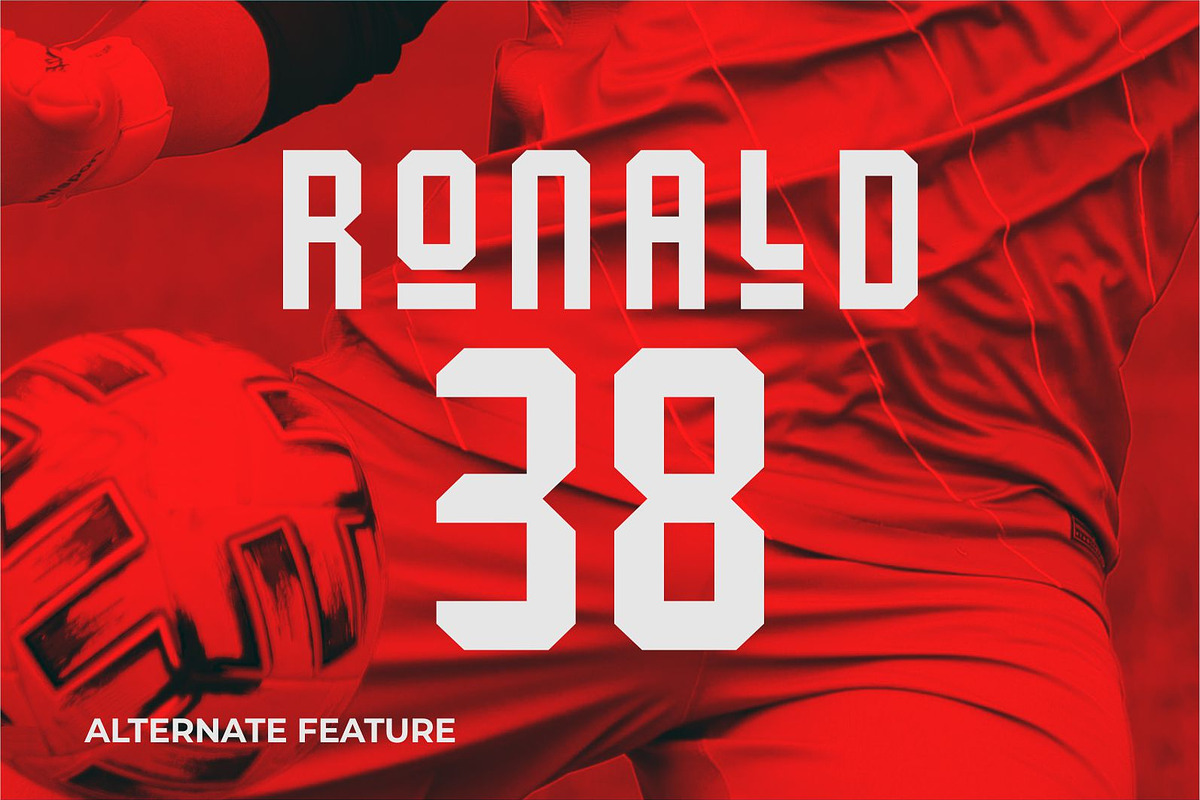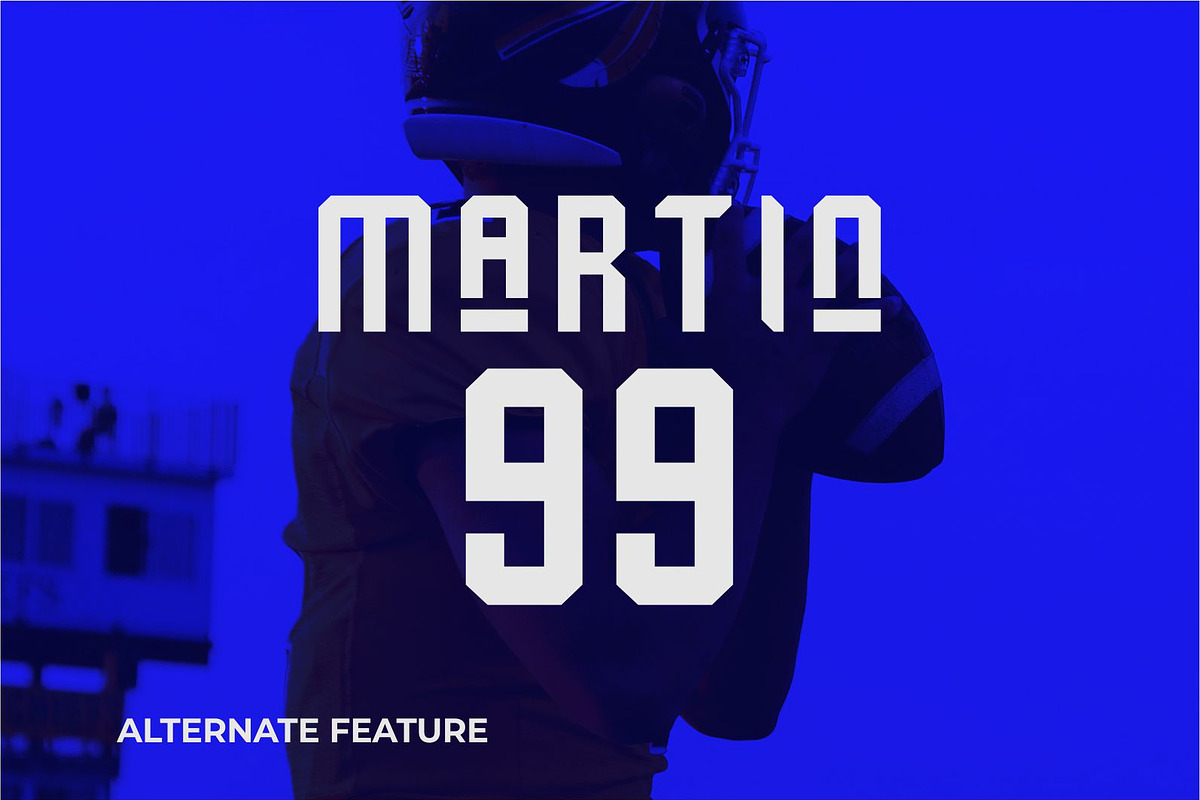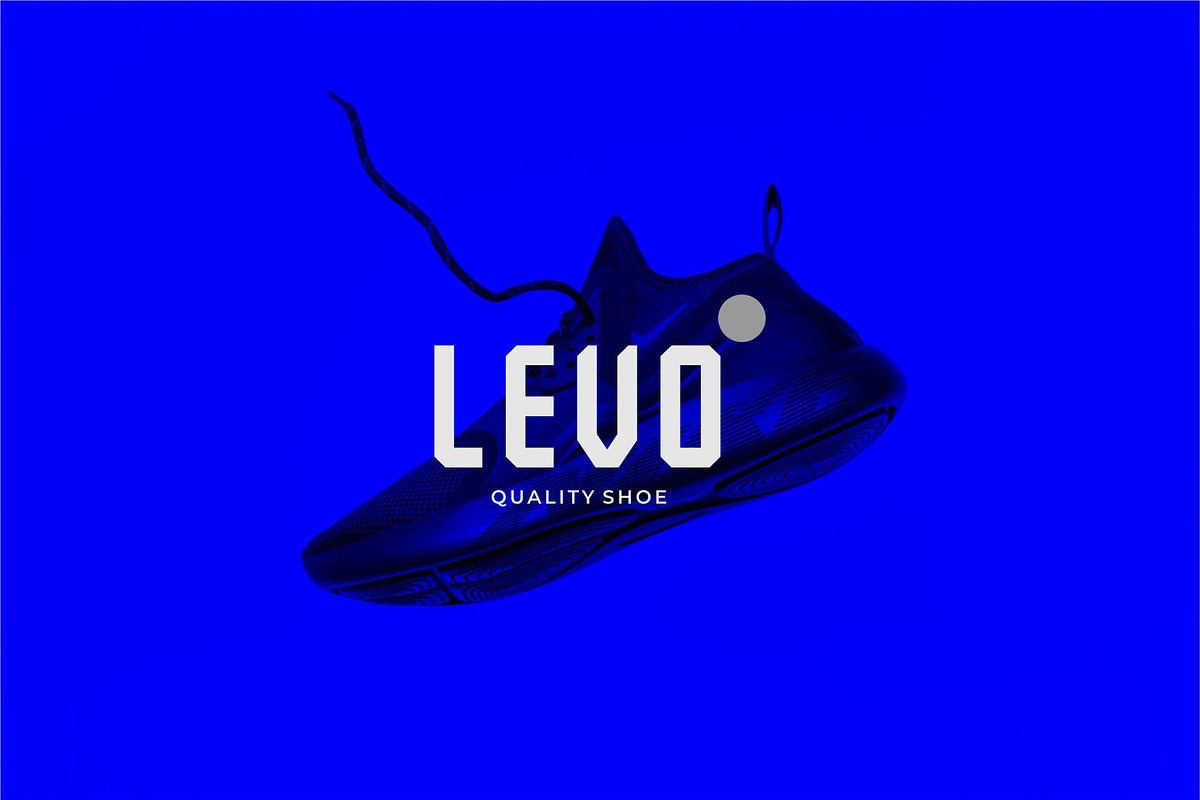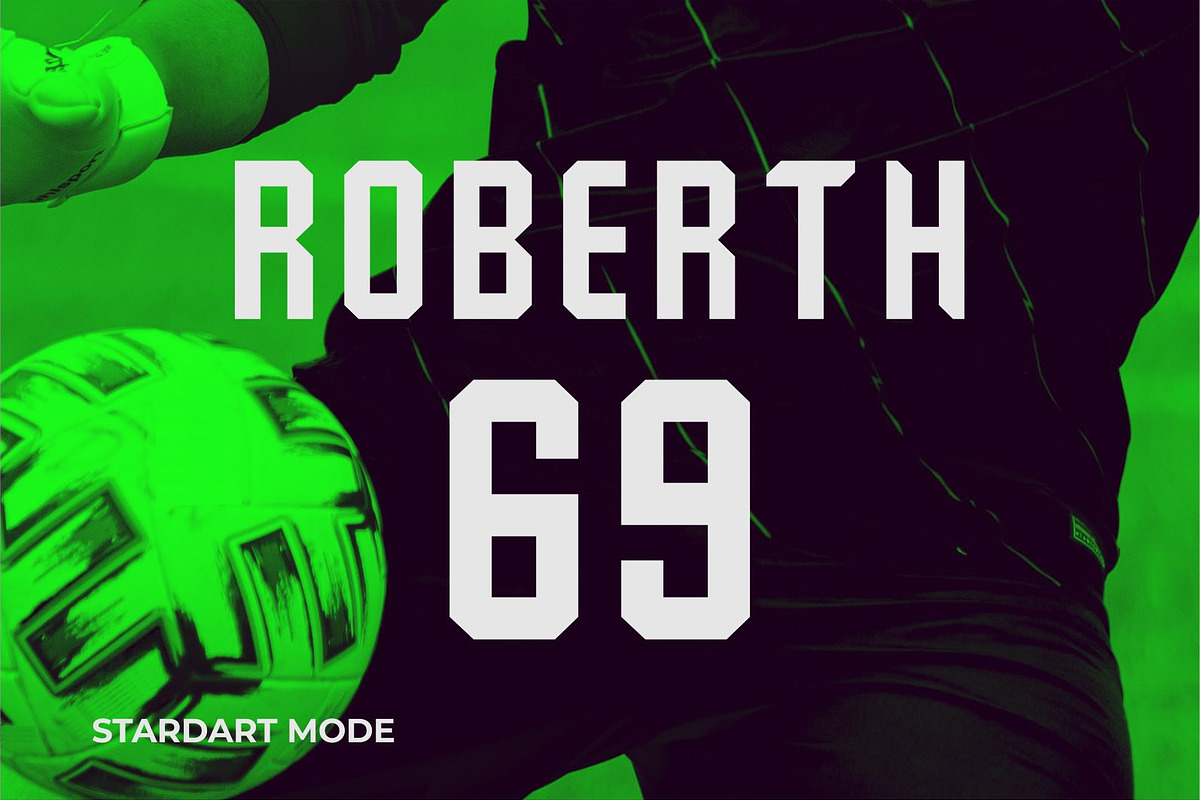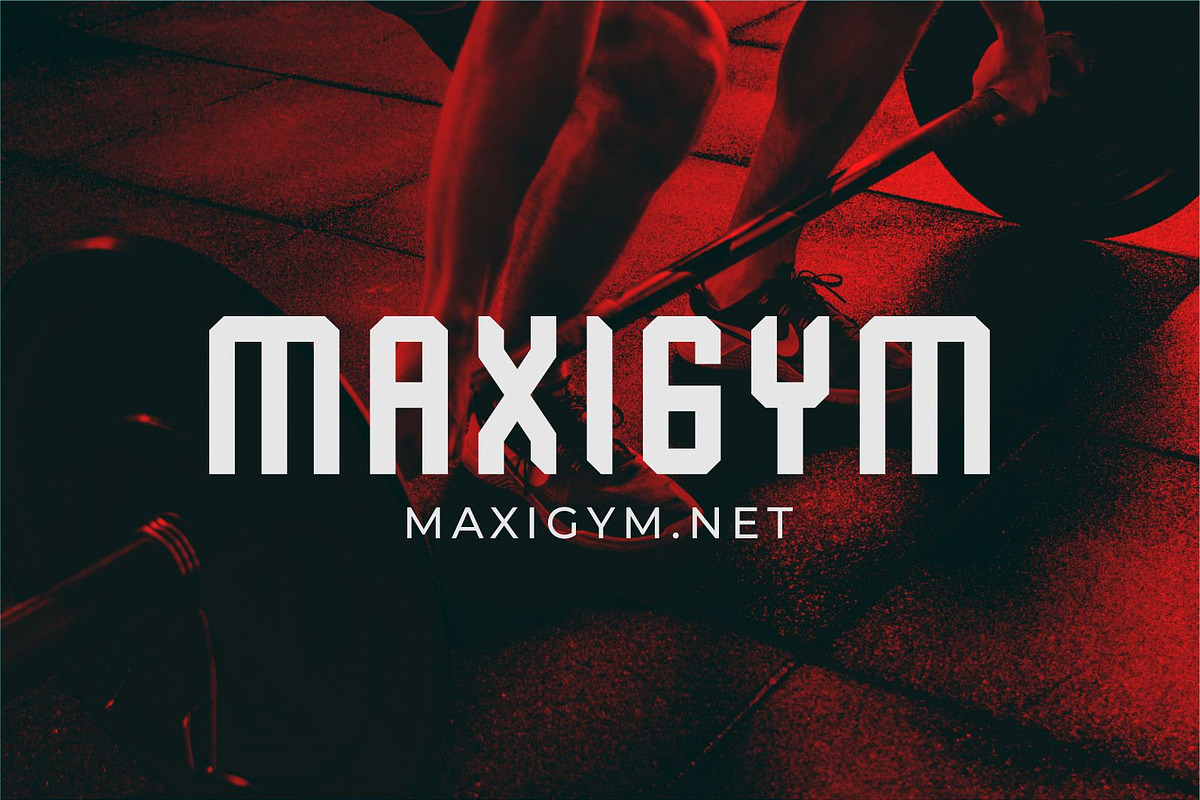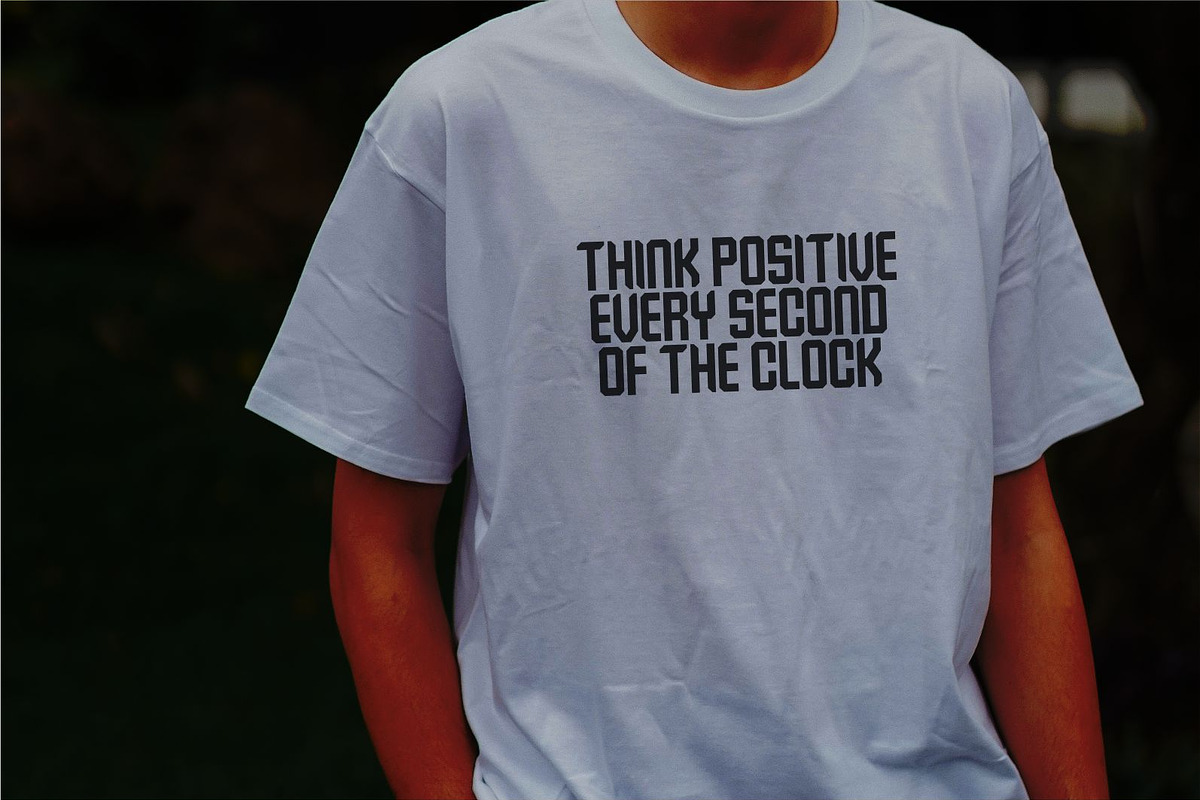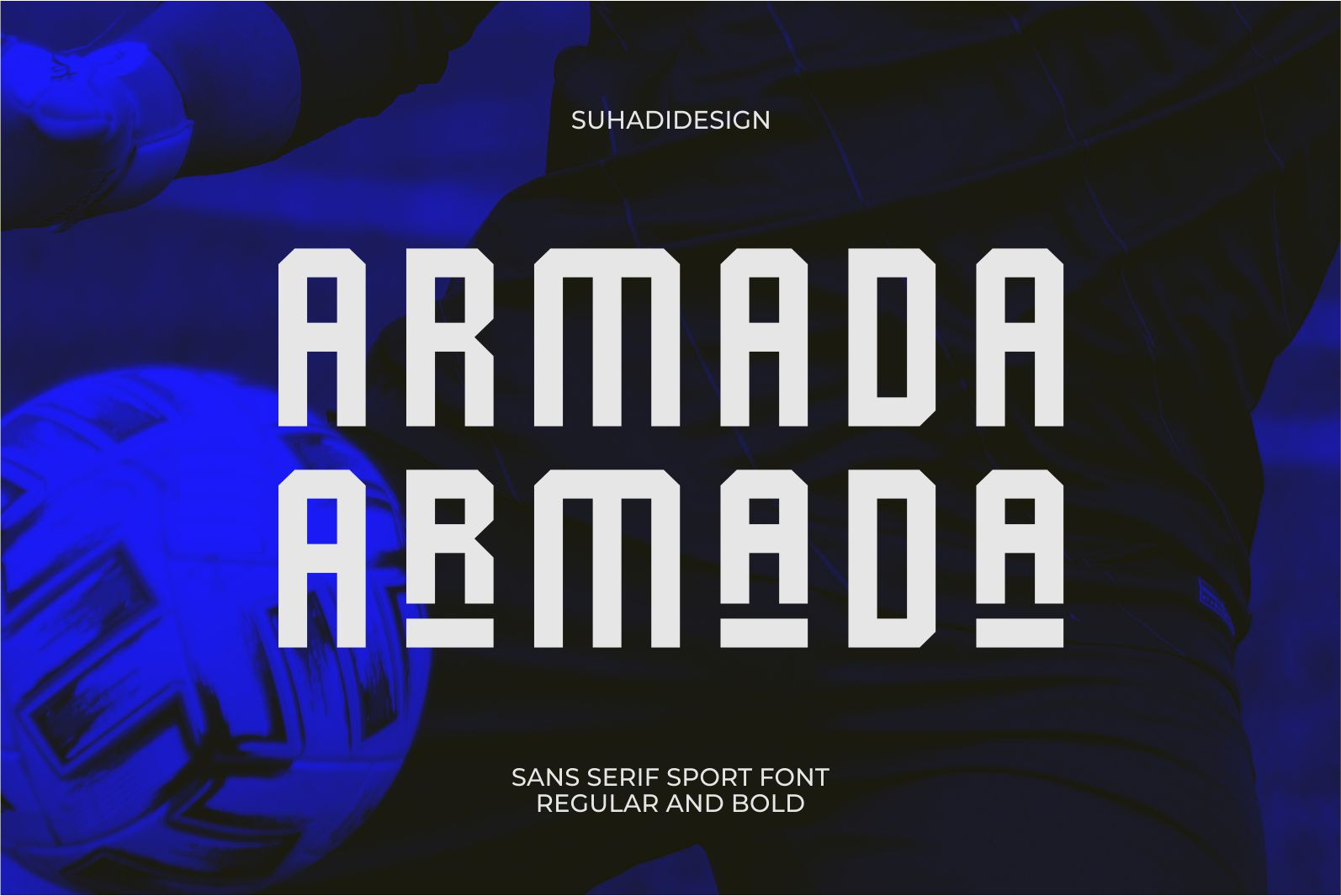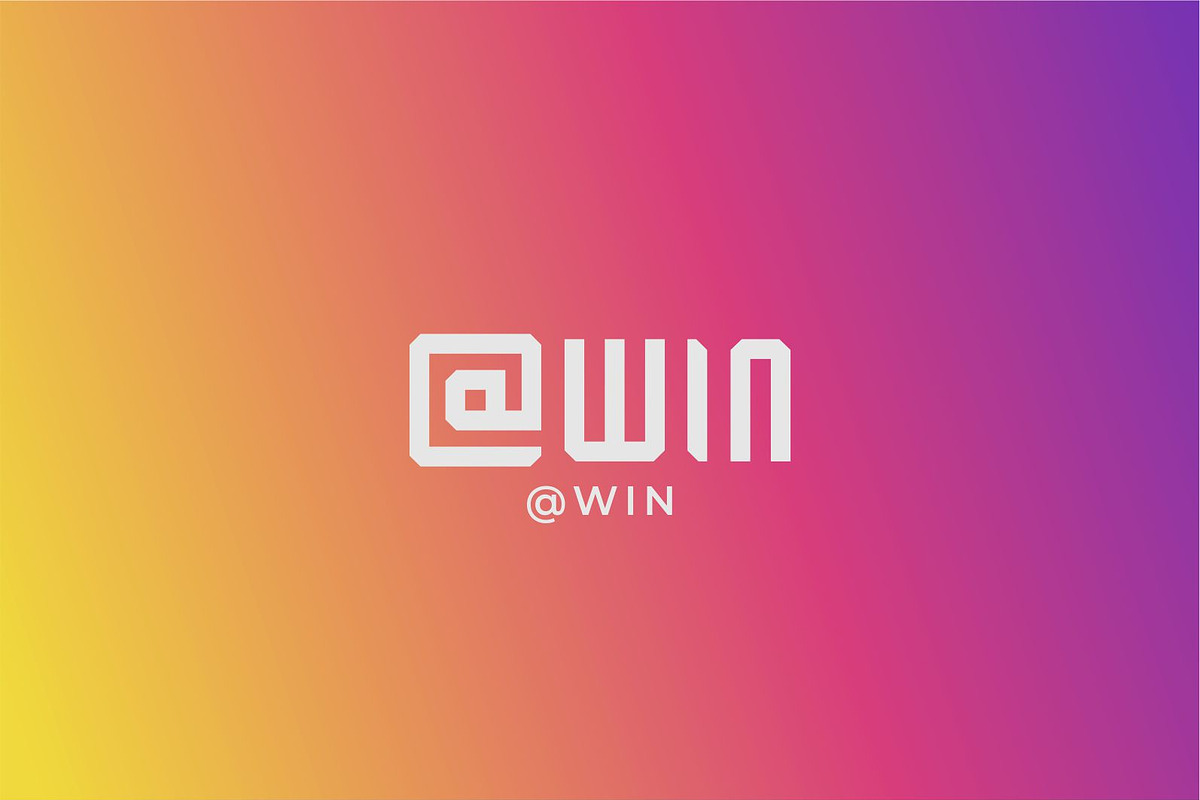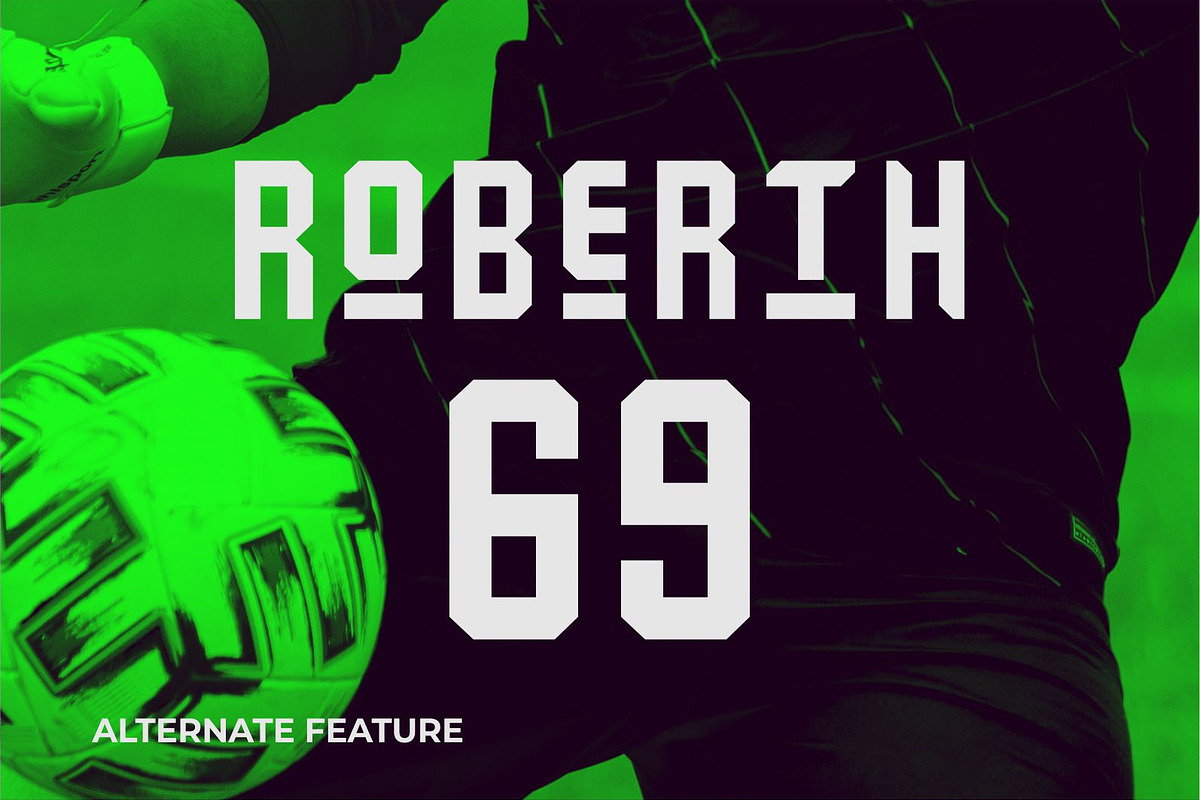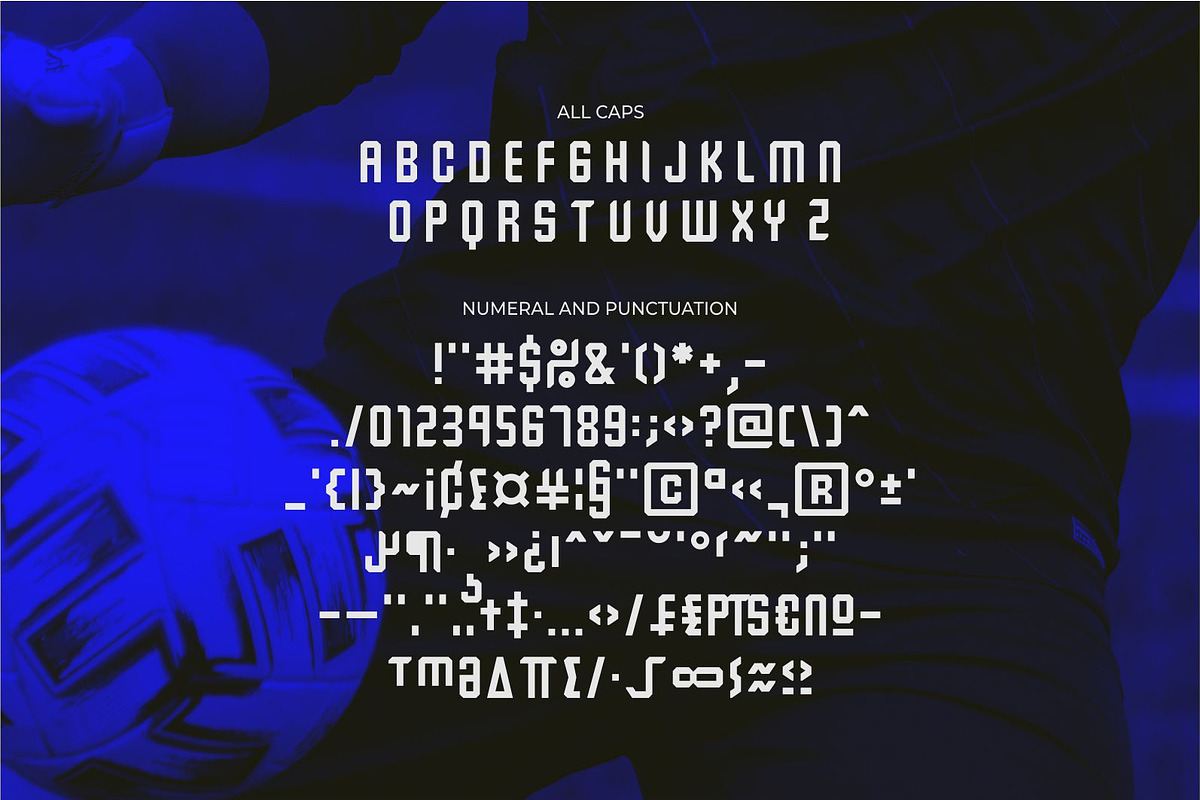
Armada | Sans Serif Sport Font
Hi ladies and gentlemen! The newest sans serif sport font has arrived, which is a font that many ladies and gentlemen have seen. Namely the Armada font. The Armada font is a sans serif font mostly created by sportswear or for logos and other designs. with a modern stylish style, it has become a market favorite. We keep this font looking elegant, classy, stylish. Armada Font is the right choice for jerseys, sportswear, logos, football, basketball, baseball, badminton, packaging, labels, magazines, designs, books, publications, brand names, business cards, social media, classy designs, newspapers, branding and other projects. Font Armada is here to improve the quality of your designs.
Feature:
• All Caps • Stylistic Alternate • 2 Families (Armada Bold, Armada Regular) • Multilingual Support • Numerical • Punctuation